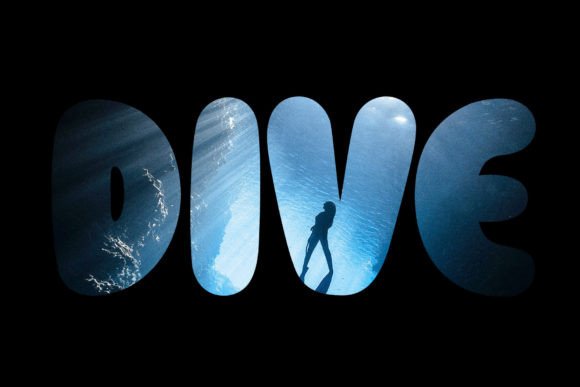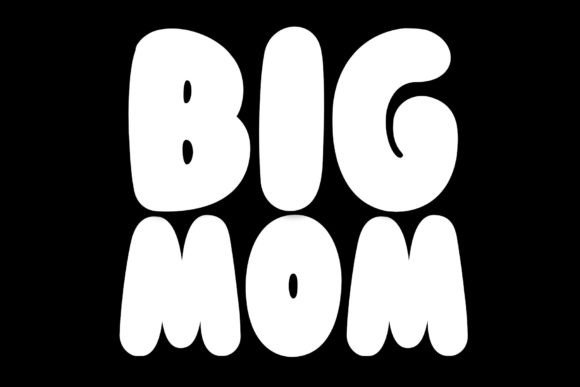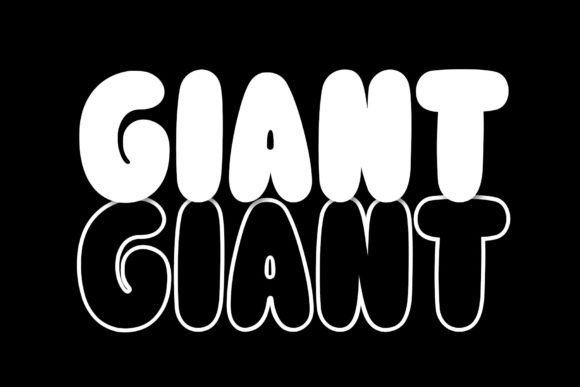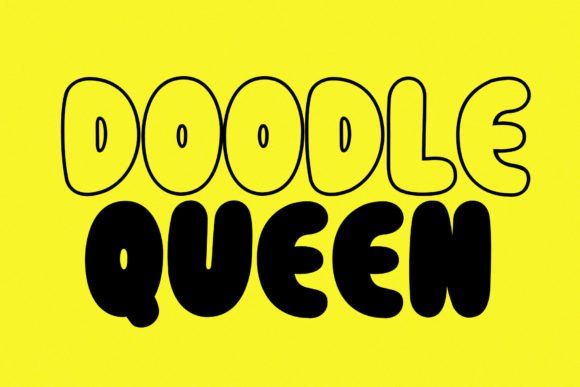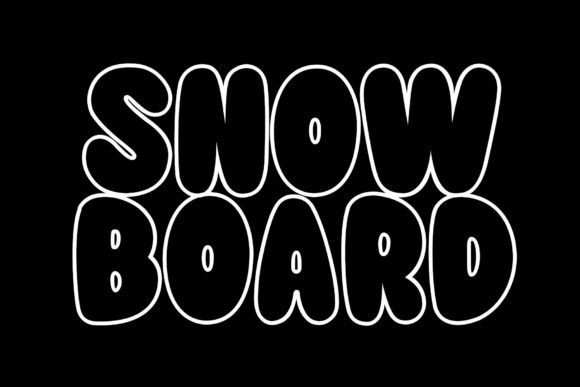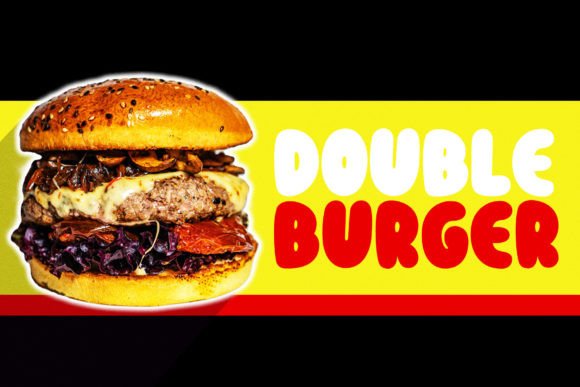
Get Hooked on Creativity
Remember that moment when an idea hits you like a hook and you can’t wait to dive in and start creating? For designers, those eureka moments are the best part of the job. And what’s even better is having the right tools to bring those ideas to life. That’s where Hook Eyes Font comes in – a bold and thick lettered display font that’s perfect for making a statement.
Add Hook Eyes Font to your projects and watch how it elevates your design. Whether you’re working on a logo, poster, or social media graphics, this font is sure to grab attention. Its unique style and thickness make it a valuable addition to any designer’s toolkit, and we’re excited to share it with you.
Key Features of Hook Eyes Font
- Font Family: Hook Eyes is a unique display font with a distinctive, hand-drawn feel.
- Unique Characteristics: Features a distinctive “hooked” shape in the letterforms, with a mix of rounded and angular elements.
Hook Eyes Font Review
When I first laid eyes on Hook Eyes Font, I was immediately drawn to its unique and quirky charm. ✨ The font’s eclectic mix of shapes and lines gives it a fun, hand-drawn feel that’s perfect for adding a touch of personality to your designs.
- The font’s bold, eye-catching letters make it ideal for use in headings and titles.
- The irregular shapes and lines add a sense of movement and energy to your designs.
- The font’s quirky charm makes it perfect for use in creative and artistic projects.
However, I do have a few concerns about the font’s usability. ⚠️ The font’s irregular shapes can make it difficult to read in certain contexts, and the lack of standardization in the letterforms can make it challenging to use in professional or formal settings.
Overall, I think Hook Eyes Font is a great choice for designers who want to add a bit of whimsy and personality to their projects. While it may not be suitable for every design task, it’s a great option for those who want to stand out and make a statement.
Getting the Most Out of Hook Eyes Font
For optimal results, use Hook Eyes Font in bold or italic styles to emphasize important text.
Experiment with different font sizes to create visual hierarchy and balance in your design.
Hook Eyes Font is ideal for use in titles, headings, and logos where a bold, eye-catching font is required.
It’s also suitable for use in creative projects, such as infographics, posters, and social media graphics.